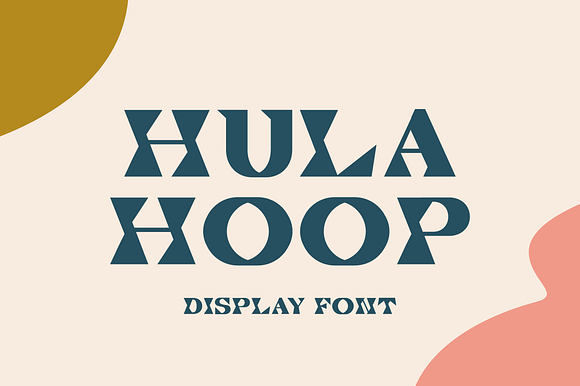
Hula Hoop - Fun Display Font
Hula Hoop is super groovy and experimental display font. Sort of a hippie meets geometric for a truly unique type experience! It super fun to play with this font and if your a designer it's a cool font to use as a base to manipulate to your liking.
Hula Hoop - Fun Display Font by Creative Type fits naturally into Branding, posters, packaging, typography.